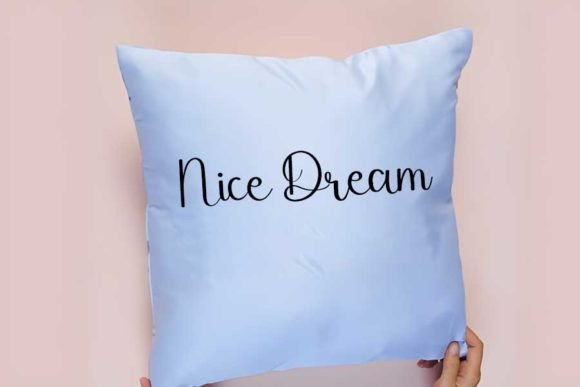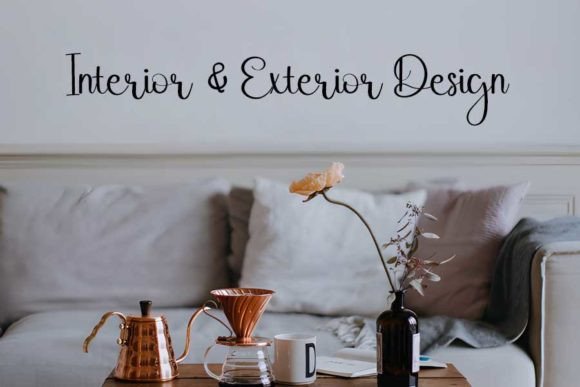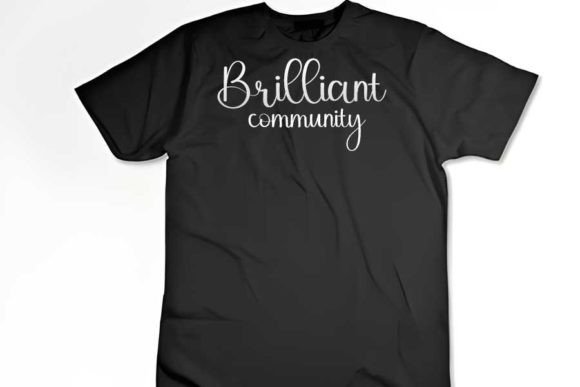
Hallowe Font: The Spookiest and Most Elegant Handwritten Style for Your Designs
As a designer or crafter, you’re always on the lookout for the perfect font to add a touch of personality to your projects. Whether you’re creating wall displays, wedding invitations, social media post logos, advertisements, product packaging, or any other design that requires a handwritten taste, you need a font that’s both elegant and attention-grabbing. That’s where Hallowe Font comes in – the latest style letters that are perfect for adding a spooky yet sophisticated touch to your designs.
What is Hallowe Font?
Hallowe Font is a unique and stylish handwritten font that’s perfect for designers and crafters who want to add a touch of elegance and whimsy to their projects. With its intricate and curved lines, Hallowe Font is ideal for creating beautiful and eye-catching designs that stand out from the crowd. Whether you’re looking to create a spooky atmosphere for Halloween or a romantic ambiance for a wedding, Hallowe Font is the perfect choice.
Features of Hallowe Font
Hallowe Font comes with a range of features that make it perfect for designers and crafters. Some of its key features include:
• Elegant and Whimsical Design: Hallowe Font features intricate and curved lines that give it a unique and elegant look.
• Perfect for Handwritten Projects: With its handwritten style, Hallowe Font is perfect for projects that require a personal and touch.
• Spooky yet Sophisticated: Hallowe Font is perfect for creating spooky and sophisticated designs that are ideal for Halloween, weddings, and other special occasions.
• Versatile: Hallowe Font can be used for a wide range of projects, including wall displays, wedding invitations, social media post logos, advertisements, product packaging, and more.
Uses of Hallowe Font
Hallowe Font is a versatile font that can be used for a wide range of projects, including:
• Wall Displays: Create eye-catching wall displays for your home, office, or store with Hallowe Font.
• Wedding Invitations: Add a touch of elegance and sophistication to your wedding invitations with Hallowe Font.
• Social Media Post Logos: Create stunning social media post logos that stand out from the crowd with Hallowe Font.
• Advertisements: Use Hallowe Font to create eye-catching advertisements that grab attention.
• Product Packaging: Add a touch of personality to your product packaging with Hallowe Font.
• Product Designs: Create stunning product designs that showcase your brand’s personality with Hallowe Font.
• Labels: Use Hallowe Font to create beautiful and elegant labels for your products.
• Photography: Add a touch of elegance to your photography with Hallowe Font watermarks.
• Invitations: Create stunning invitations for any occasion with Hallowe Font.
• Stationery: Use Hallowe Font to create beautiful and elegant stationery for your personal or business use.
Why Choose Hallowe Font?
There are many reasons why you should choose Hallowe Font for your designs. Here are a few:
• Unique and Elegant Design: Hallowe Font features a unique and elegant design that’s perfect for adding a touch of personality to your projects.
• High-Quality: Hallowe Font is a high-quality font that’s designed to produce stunning results.